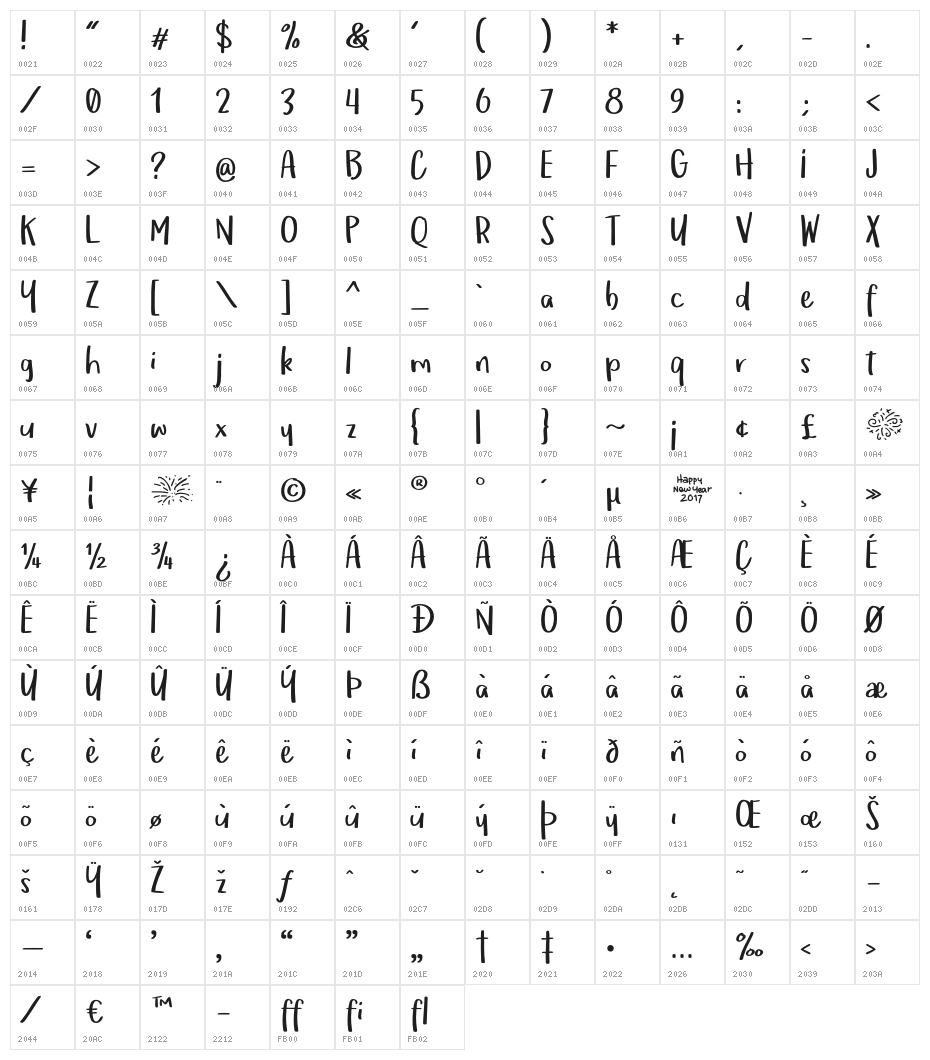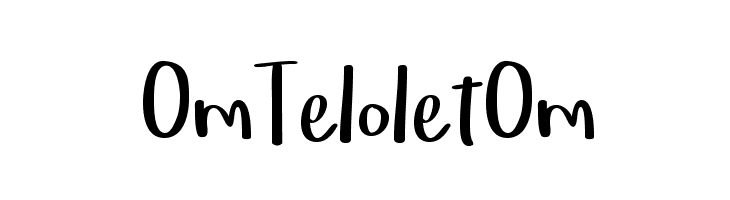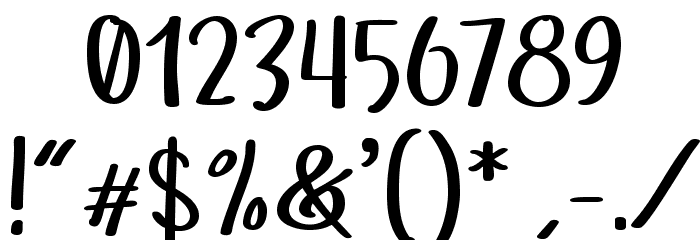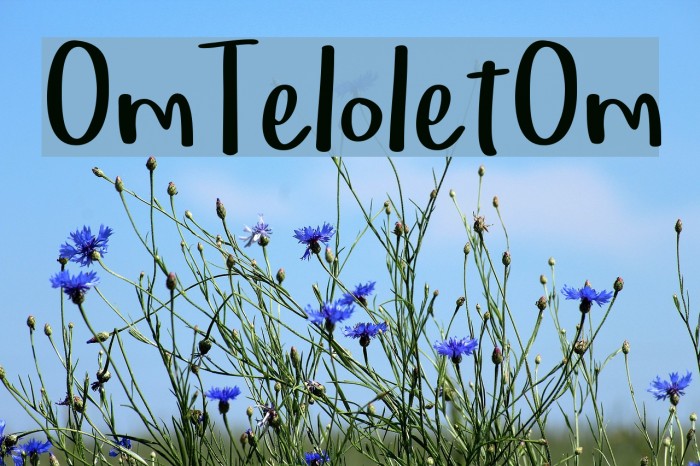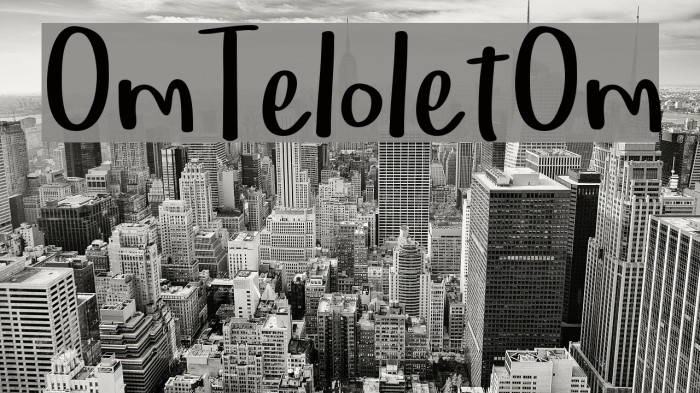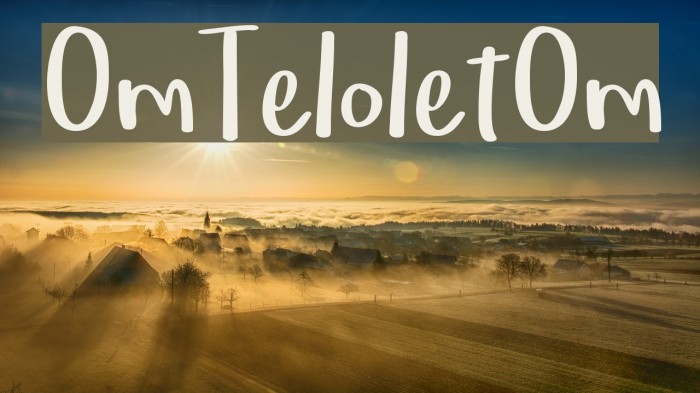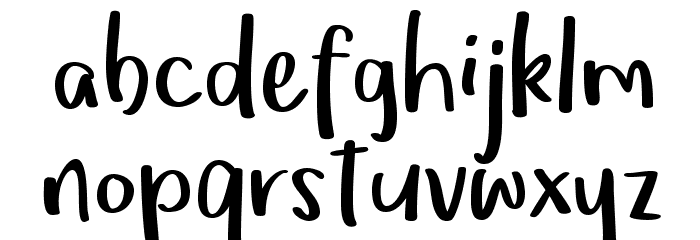
OmTeloletOm Font
OmTeloletOm Description
This playful and energetic font features a handwritten style with a casual and informal appearance. The letters are slightly irregular, adding a sense of spontaneity and charm. The uppercase and lowercase characters maintain a consistent flow, with rounded edges and a smooth, flowing line quality. The numerals and special characters complement the alphabet with the same lively and whimsical feel. This font is perfect for projects that require a personal touch or a fun, engaging aesthetic.
| Overall Style | Casual and playful |
| Use Case | Headlines, Logos, Social media graphics |
| Proposed Projects | Ideal for greeting cards, children's books, playful branding, and social media graphics. |